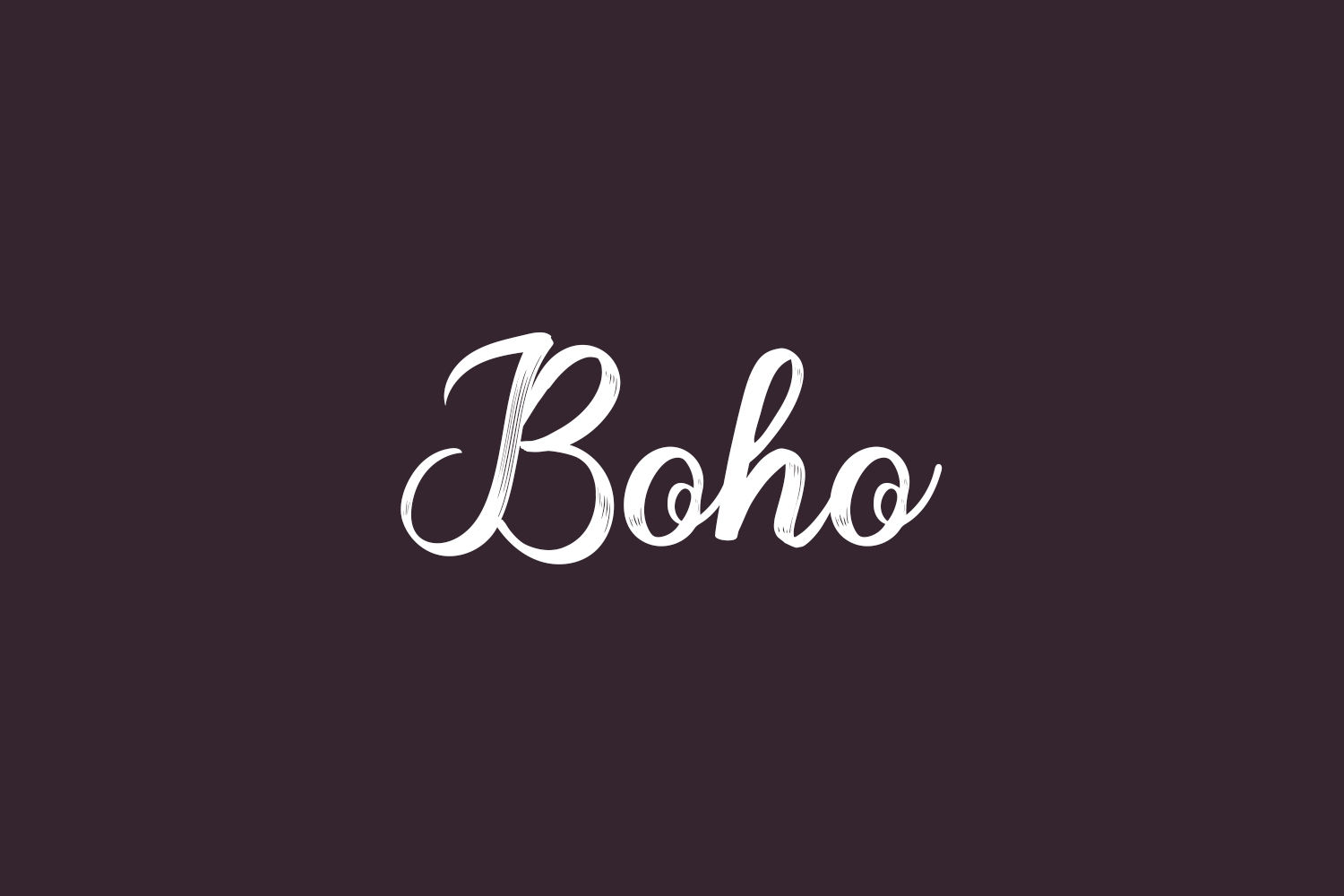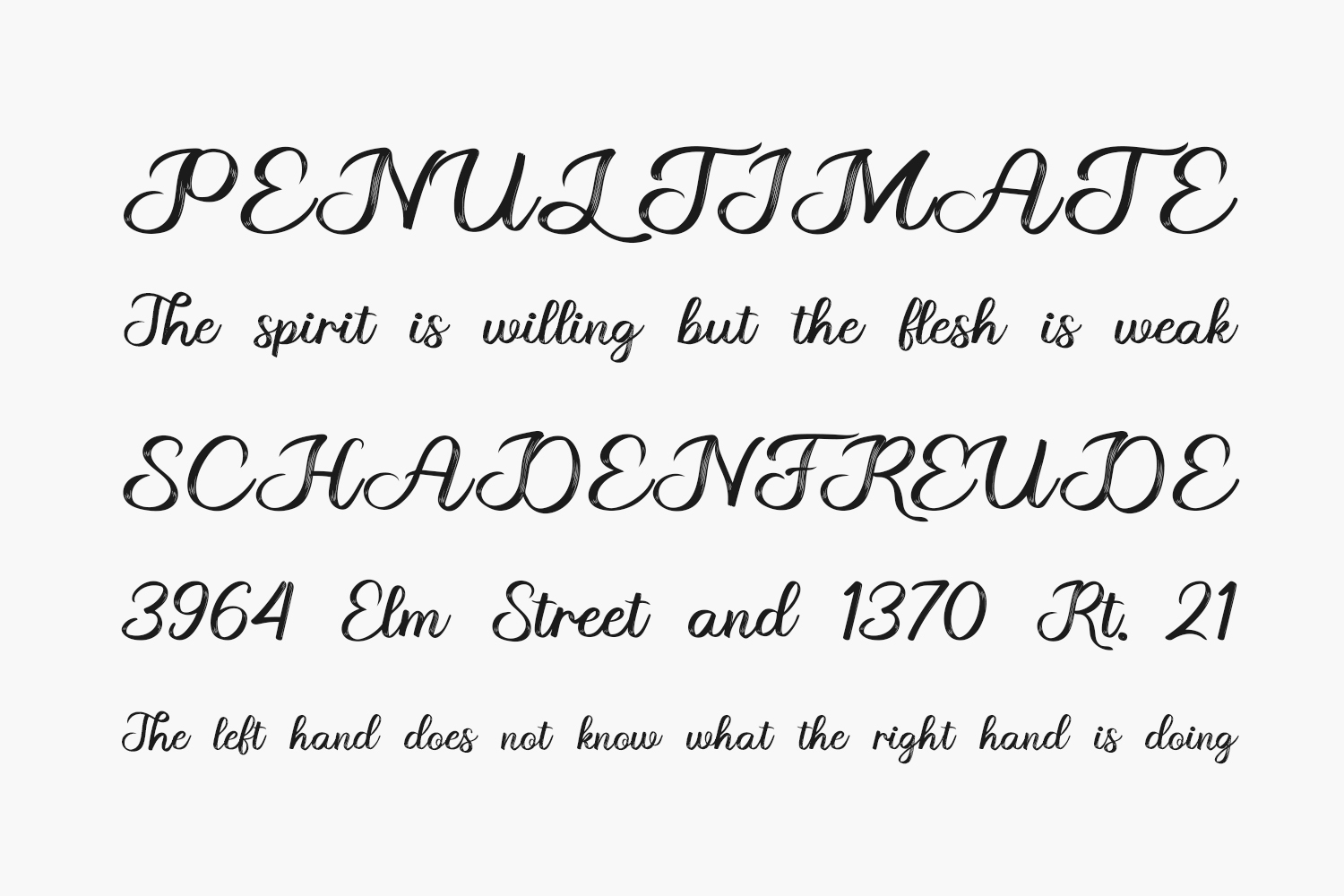
Boho Free Font script brush exudes a carefree, bohemian spirit with its flowing, whimsical strokes. The font is perfect for adding a touch of wanderlust and creativity to any project. It evokes feelings of freedom and self-expression, making it the perfect choice for anyone looking to add a unique, personal touch to their designs. The brushstrokes give the font a handcrafted, organic feel that is both inviting and inspiring.
Designed by Sugeng Choirul